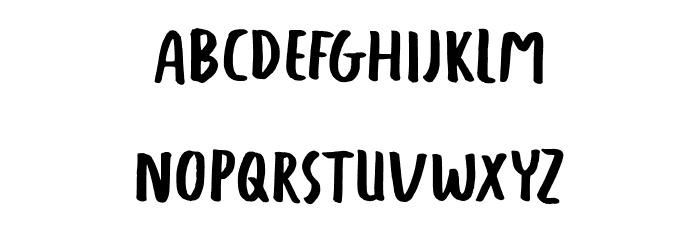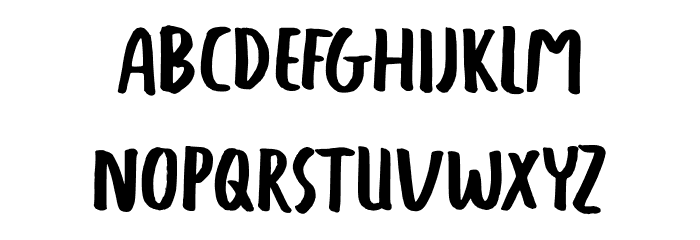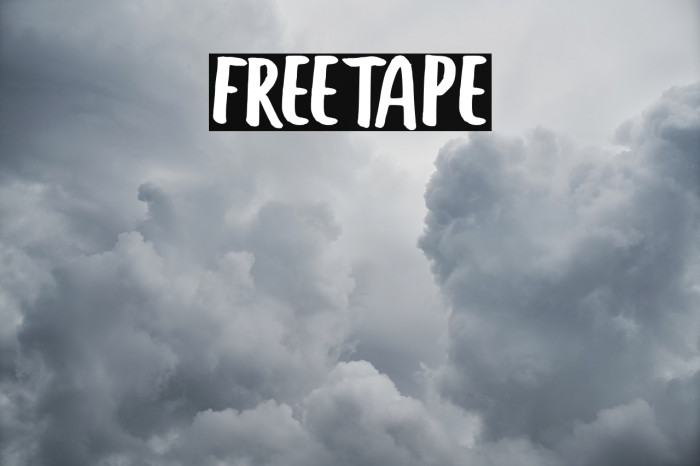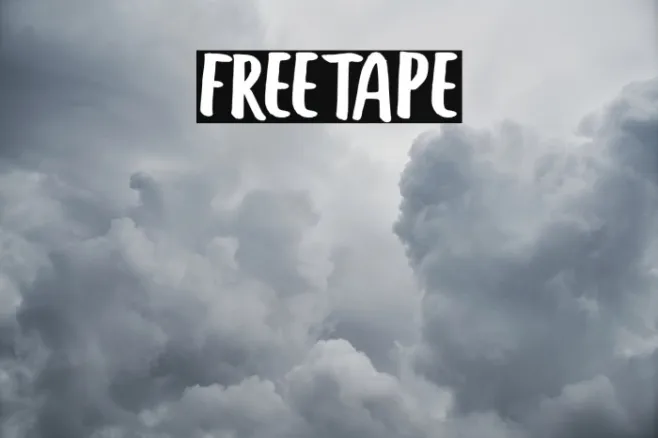
FREETAPE Font
This font features a bold and playful style with a handwritten appearance. The characters are slightly irregular, giving it a casual and friendly feel. The strokes are thick and consistent, with rounded edges that add to its approachable nature. The uppercase letters are prominent and well-defined, while the lowercase letters maintain a similar weight, ensuring readability. The numbers and special characters follow the same design principles, making them cohesive with the rest of the font. Overall, this font exudes a sense of fun and creativity, making it suitable for informal and engaging designs.
A bold, playful handwritten font with thick, rounded strokes.
- Proposed Projects: Ideal for children's books, playful branding, casual invitations, and creative posters.
- Overall Style: Playful